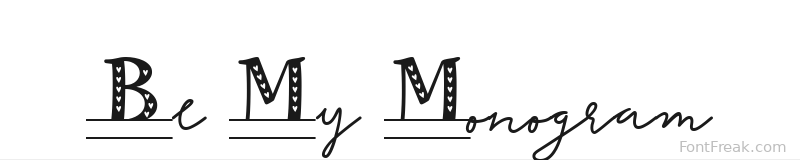
Be My Monogram
Be My Monogram, designed by Misti Hammers, is a charming handwritten font that exudes elegance and individuality. With its playful yet refined aesthetic, this font is perfect for those seeking a personal touch in their designs. The strokes are fluid and expressive, showcasing a moderate contrast that adds depth without overwhelming the viewer. The letterforms feature a delightful mix of whimsical loops and decorative elements, making it a standout choice for projects that call for creativity and flair.
The Be My Monogram font is particularly well-suited for a variety of applications. Its unique style makes it an excellent choice for wedding invitations, where couples can convey their love story with a personalized touch. Additionally, it can elevate the design of restaurant menus, providing a warm and inviting feel that encourages patrons to explore the offerings. This font also shines in branding projects, lending a memorable and distinctive quality to logos and product packaging. Content creators can utilize it in social media graphics, helping their posts to stand out in crowded feeds.
What sets Be My Monogram apart is its ability to blend sophistication with a touch of whimsy, making it a versatile addition to any designer's toolkit. With its appealing visual characteristics and broad range of potential applications, you can’t go wrong with a Be My Monogram font free download for your next creative endeavor.